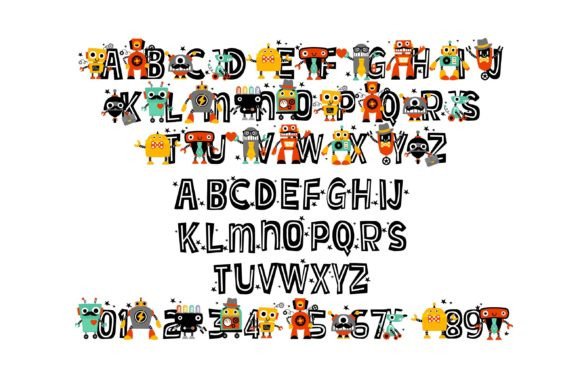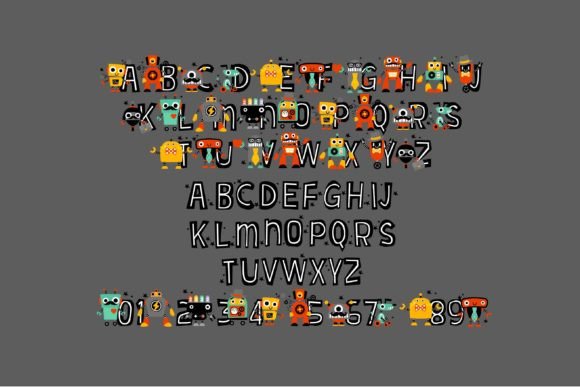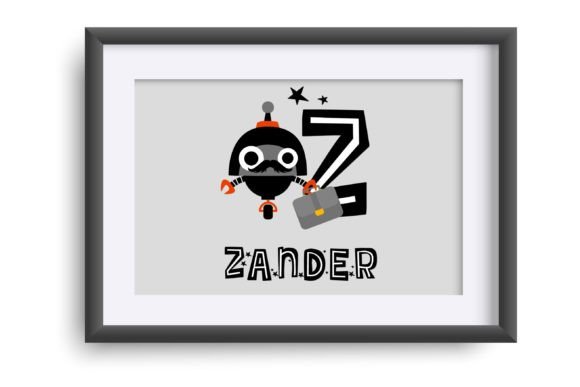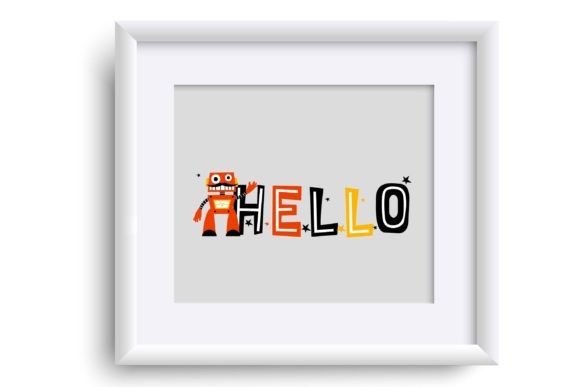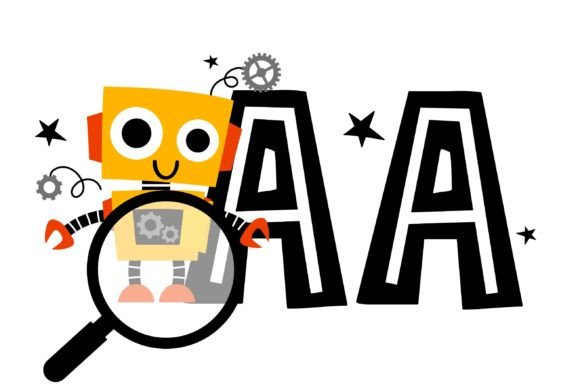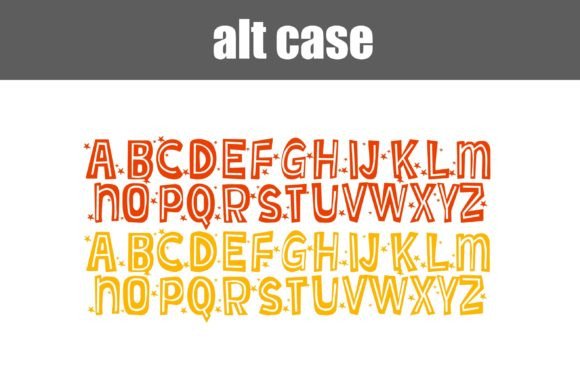
The Ultimate Guide to Dadbot Font: A Designer’s New Best Friend
I still remember the day I stumbled upon the perfect font for a quirky client project. I was scrolling through my font library, and then – BAM! – I saw it: Dadbot Font. This full-color, crafty sans serif font with robots in the uppercase stole my heart, and I’ve been obsessed ever since. In this article, I’ll share my love for Dadbot Font, its features, and how to make the most of it in your designs.
- ✨ Unique and playful design: The robot-themed uppercase letters are a game-changer for designs that need a touch of whimsy.
- 🎨 Full-color capabilities: With an alt version containing additional colors, you can take your designs to the next level.
⚠️ While Dadbot Font is amazing, there are a few things to keep in mind:
A Practical Guide to Using Dadbot Font
The Backstory Behind Dadbot Font
Rumor has it that Dadbot Font was inspired by a designer’s love for robots and 80s pop culture. The creator wanted to craft a font that would bring a smile to people’s faces and add a touch of fun to their designs. And, boy, did they succeed!
And there you have it – a comprehensive guide to Dadbot Font! With its unique design, OpenType features, and full-color capabilities, this font is sure to become a favorite among designers, crafters, and creative hobbyists.